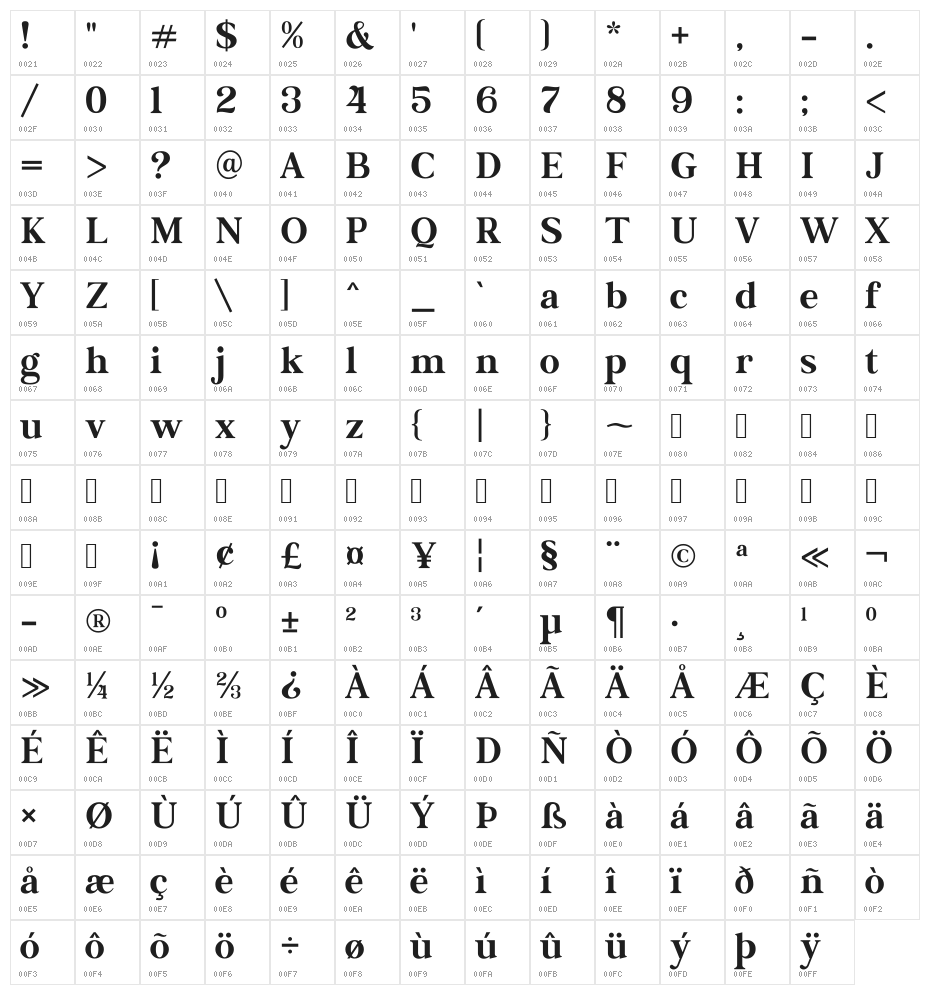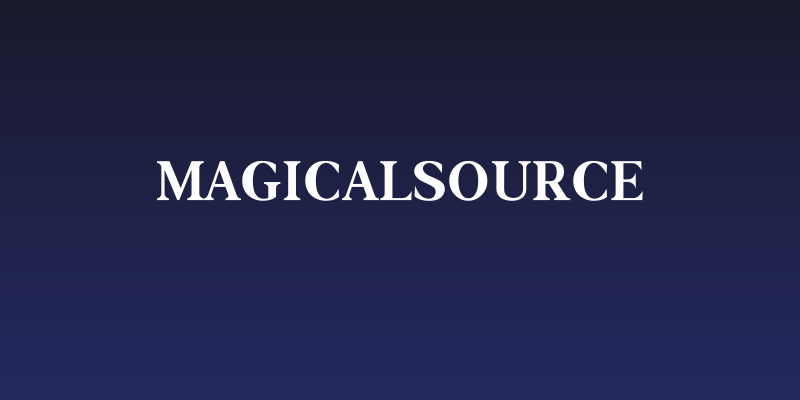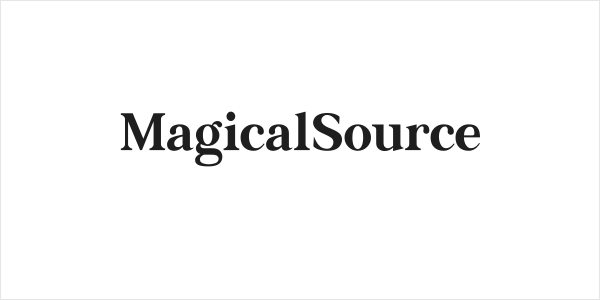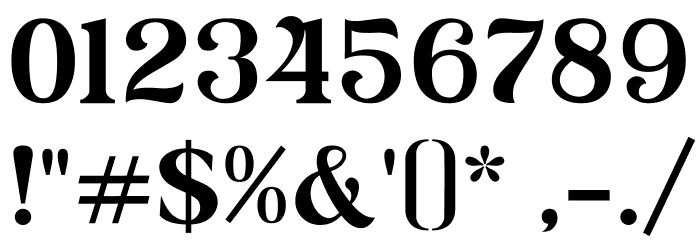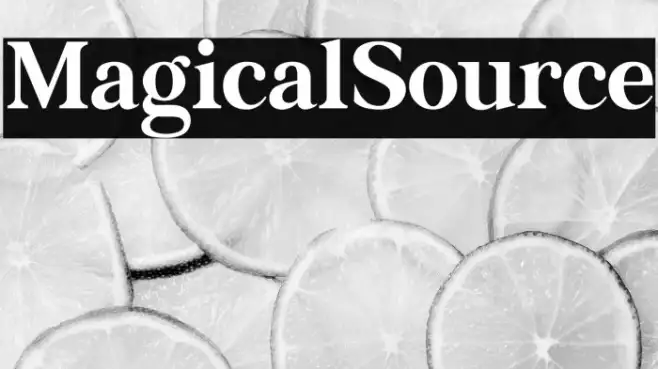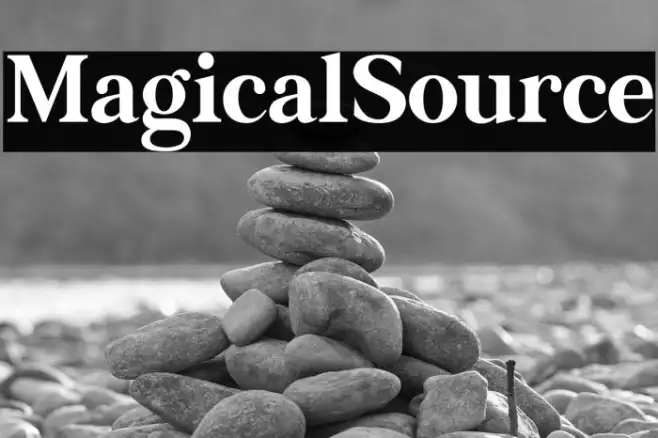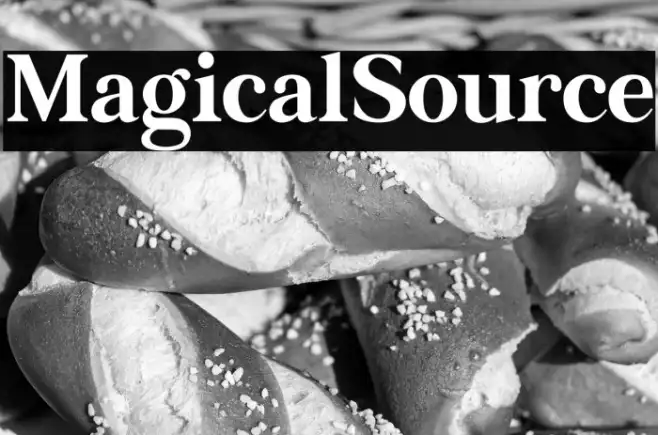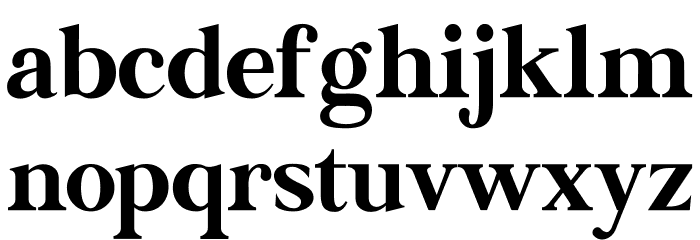
MagicalSource Font
MagicalSource Description
This font features a classic serif style with strong, bold strokes and high contrast between thick and thin lines. The serifs are pronounced, adding a touch of elegance and tradition to the overall appearance. The uppercase letters are tall and commanding, while the lowercase letters maintain a balanced and readable form. The numerals are consistent with the font's bold style, ensuring clarity and impact. Special characters are well-integrated, maintaining the font's cohesive look. This font is ideal for projects that require a formal and authoritative presence.
| Use Case | Headlines, Logos, Editorial design |
| Proposed Projects | Ideal for book covers, formal invitations, branding materials, and editorial design. |